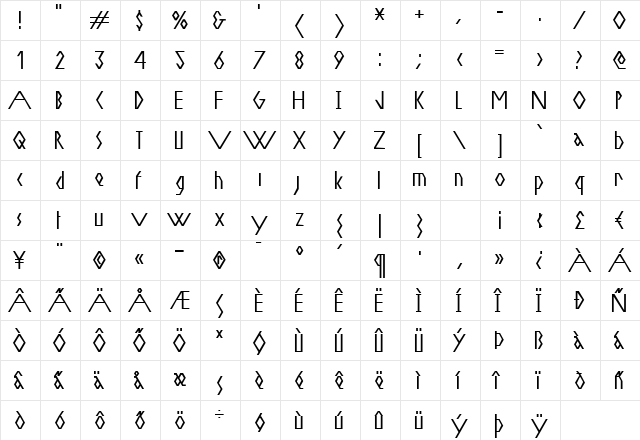
Vacant Light Alternate Regular
Design Context for Vacant Light Alternate Typeface
Vacant Light Alternate offers clean, dependable letterforms without strong stylistic allegiance, making it a practical choice for designers who need flexibility. Its slender proportions lend an understated elegance to any composition.